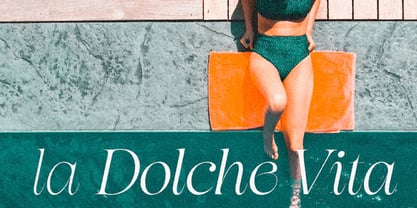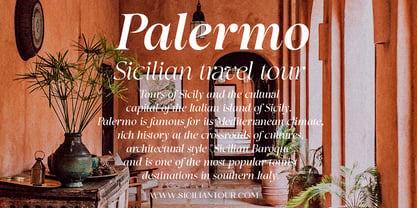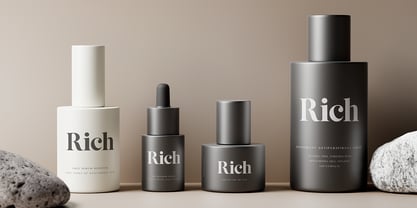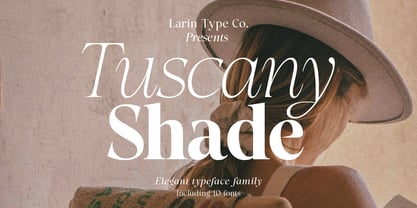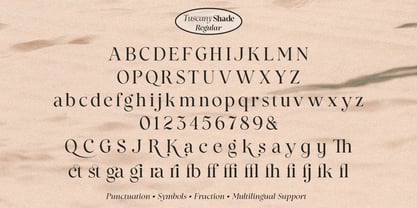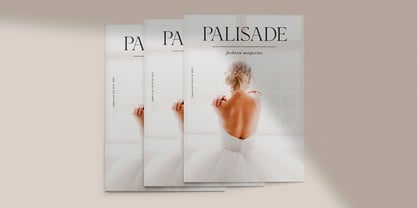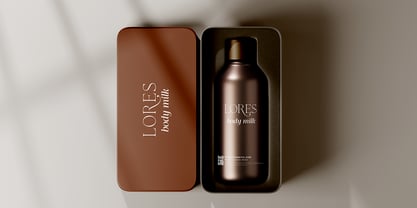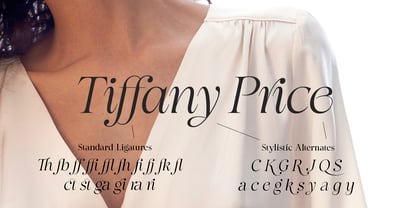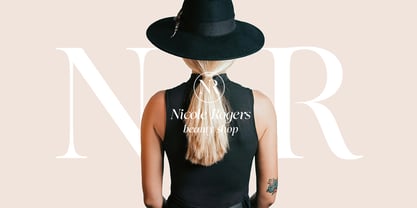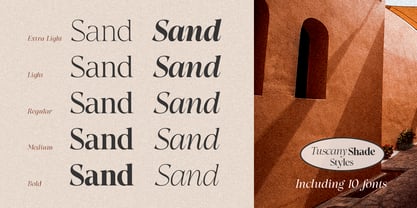
Tuscany Shade
by Larin Type Co
The Tuscany Shade Font Family was designed by Pavel Larin and published by Larin Type Co. Tuscany Shade contains 10 styles and family package options. More about this family
Tuscany Shade is an elegant and contrasting serif font family, offering a stylish solution for your design needs. It features both regular and true Italic styles, each available in five weights ranging from extra light to bold. This versatile and timeless font is ideal for fashion projects, combining modern aesthetics with readability. Use Tuscany Shade to craft stunning logos, eye-catching banners, compelling advertising materials, attractive packaging, captivating book covers, and engaging magazine layouts. Its distinct contrast and clarity make it perfect for headings, descriptions, and a variety of creative applications.
Designers: Pavel Larin
Foundry: Larin Type Co